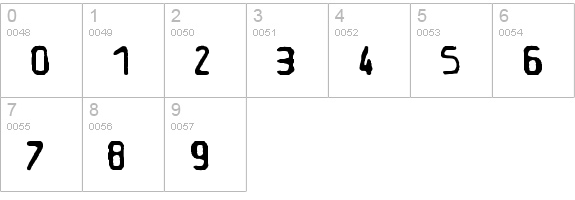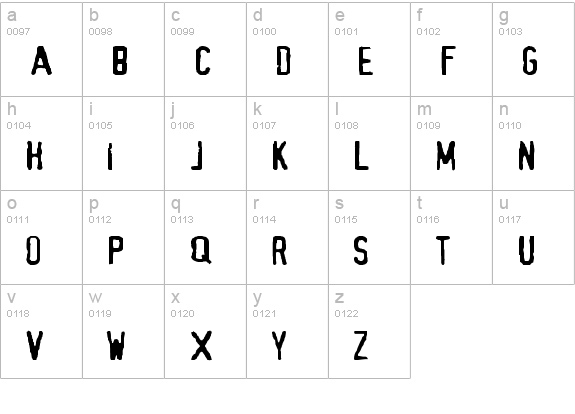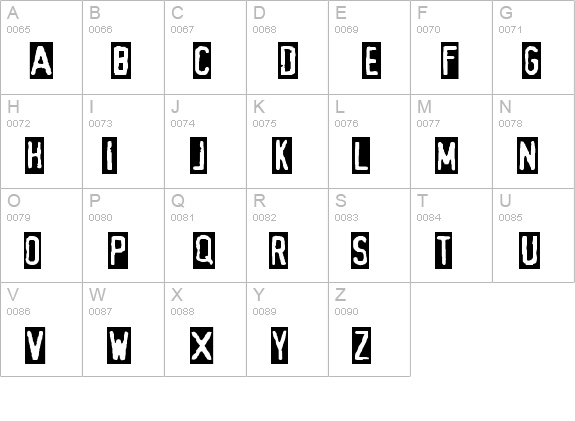
Alias Font Details
Alias font is a stunning typeface that combines modern aesthetics with a touch of elegance. Its sleek lines and unique design make it a versatile choice for a wide range of projects, from branding to editorial design. The Alias font is contemporary and eye-catching, making it perfect for making a statement and capturing attention. Best of all, Alias font is available for free download at FontsMarket.com. This means you can easily access this beautiful font and use it in your projects without any cost. Whether you're a designer looking to add a fresh look to your work or a business owner wanting to enhance your brand identity, Alias font is a fantastic option that won't break the bank. Download it today and see the difference it can make in your designs!